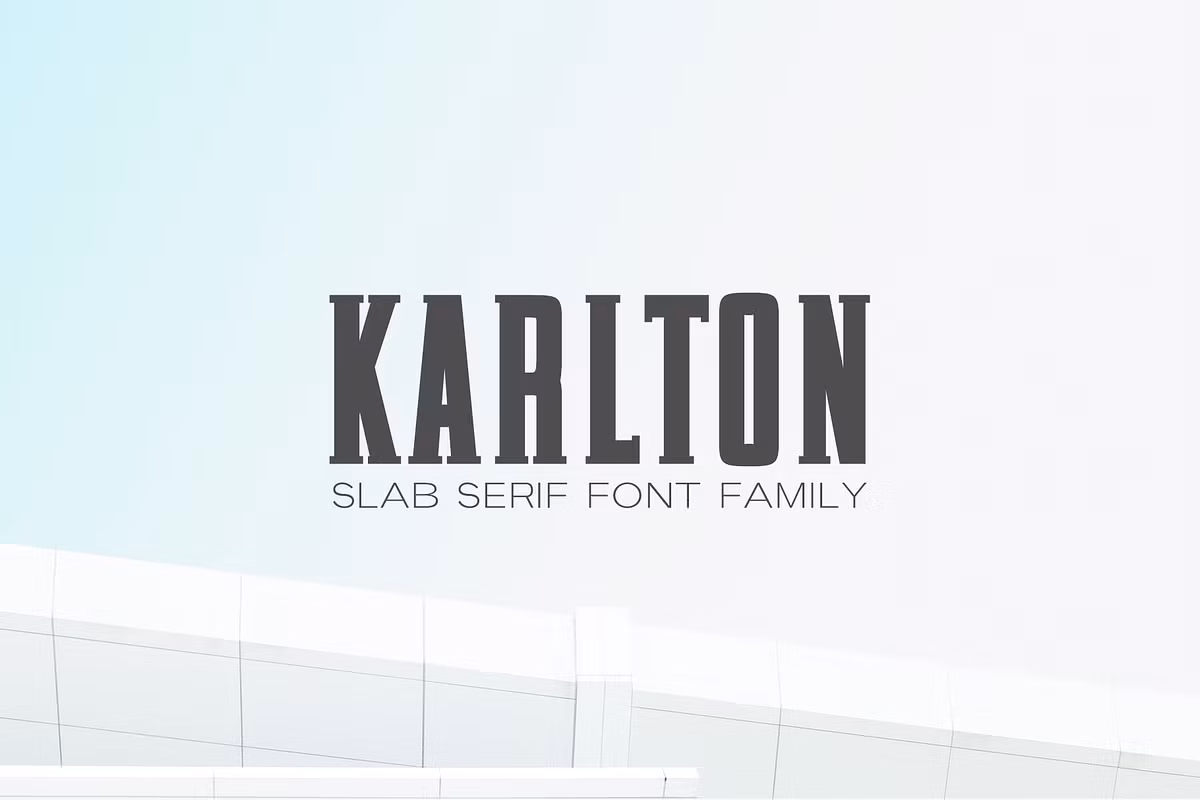
Strong, structured, and timeless, Karlton Slab Serif Font Family Free Download is a versatile typeface perfect for editorial design, branding, logos, and signage. With bold slab serifs and balanced proportions, this font family offers both authority and style, making it a go-to choice for projects that demand clarity and impact.
Featuring multiple weights and styles, Karlton is crafted to adapt to a wide range of design needs—from bold headlines to readable body text. Its refined yet sturdy appearance works beautifully in both print and digital formats, providing a professional and classic look that elevates any visual identity.